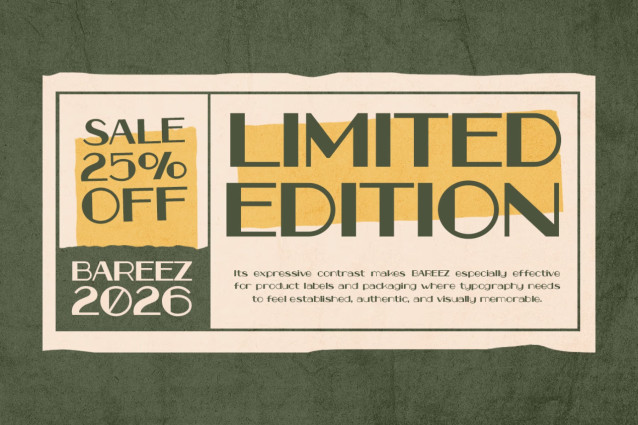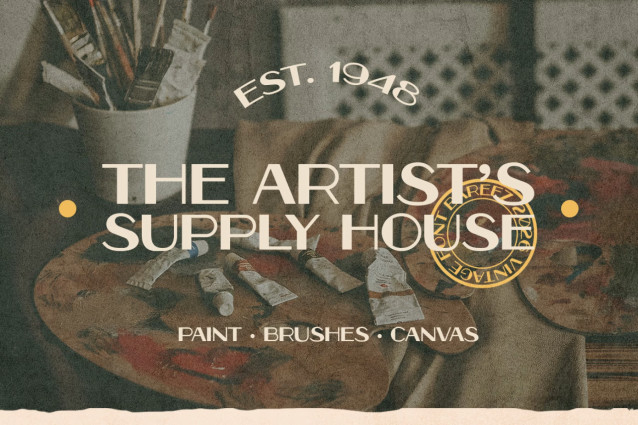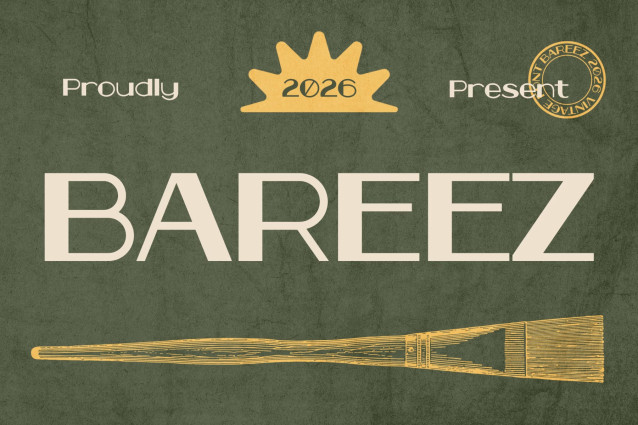
BAREEZ – Vintage Artisan Display Font
Vintage Font BAREEZ brings a sophisticated artisan feel inspired by traditional art materials, vintage workshops, premium labels, and classic European packaging. Not only does it feature elegant, slightly condensed letterforms, but it also combines clean geometry with subtle handcrafted details for a distinctive old-world character. Moreover, its refined proportions create a calm and professional appearance, while the vintage texture adds warmth and authenticity.
In addition, BAREEZ works beautifully for headlines, labels, packaging, and brand identities that need a cultured visual touch. Furthermore, its timeless personality makes modern designs feel more established and carefully crafted. At the same time, the versatile letterforms maintain clarity across different layouts and sizes.